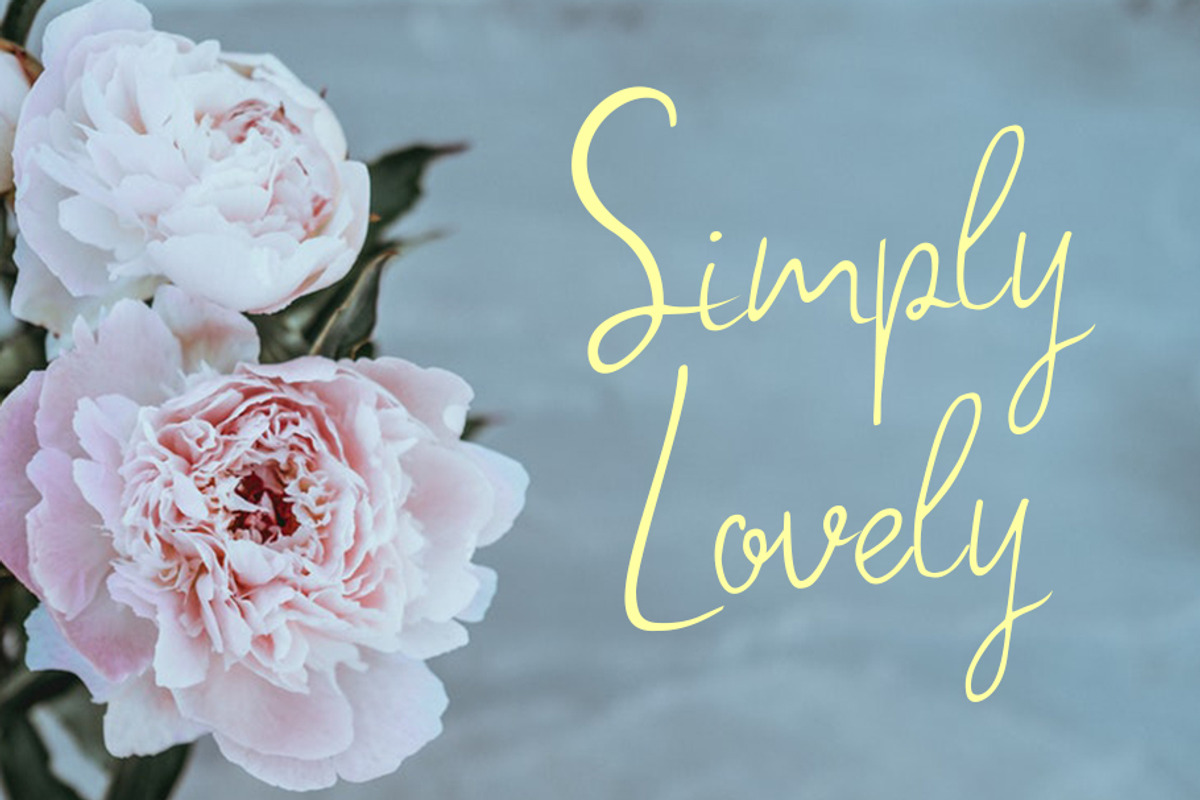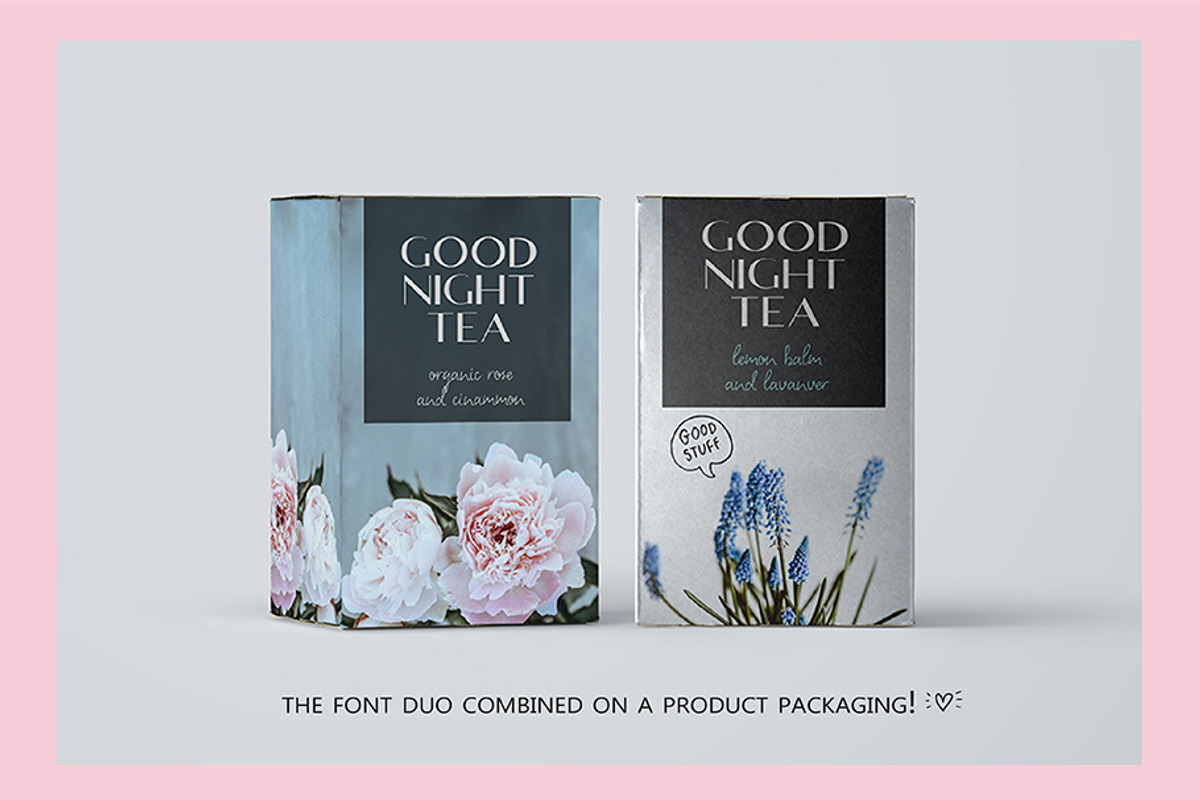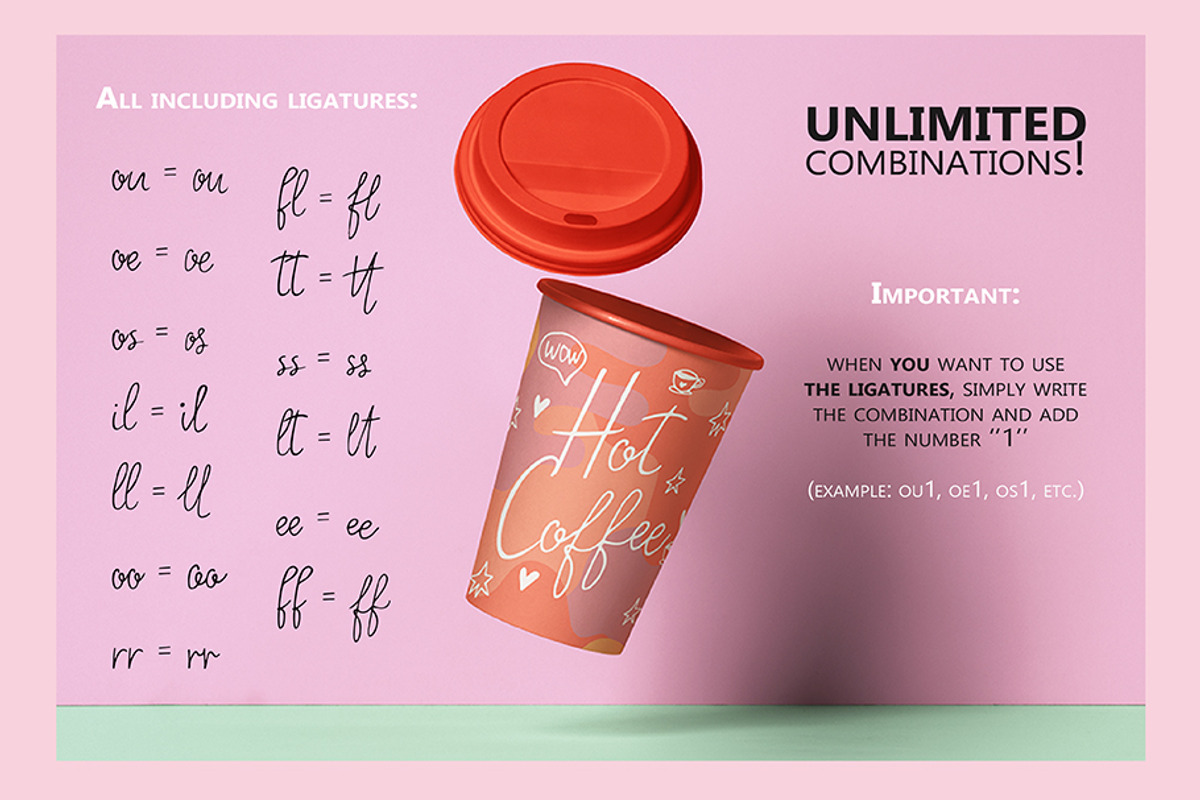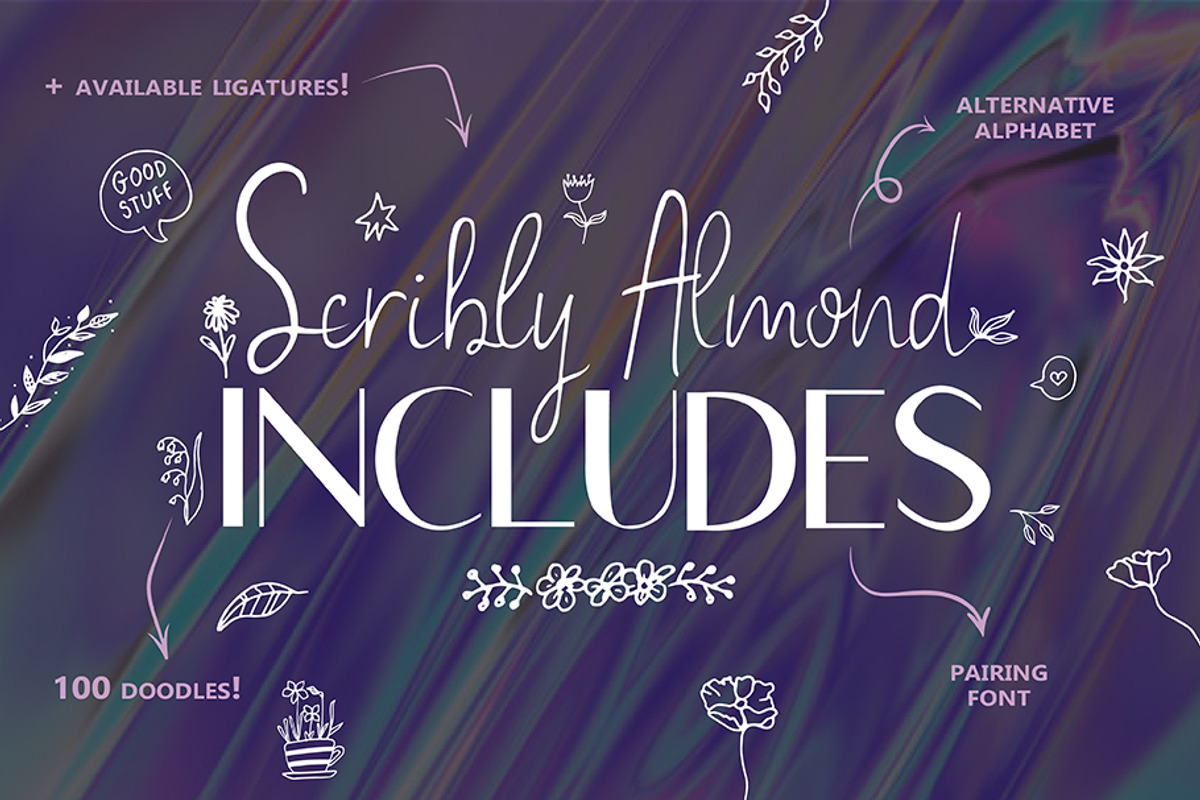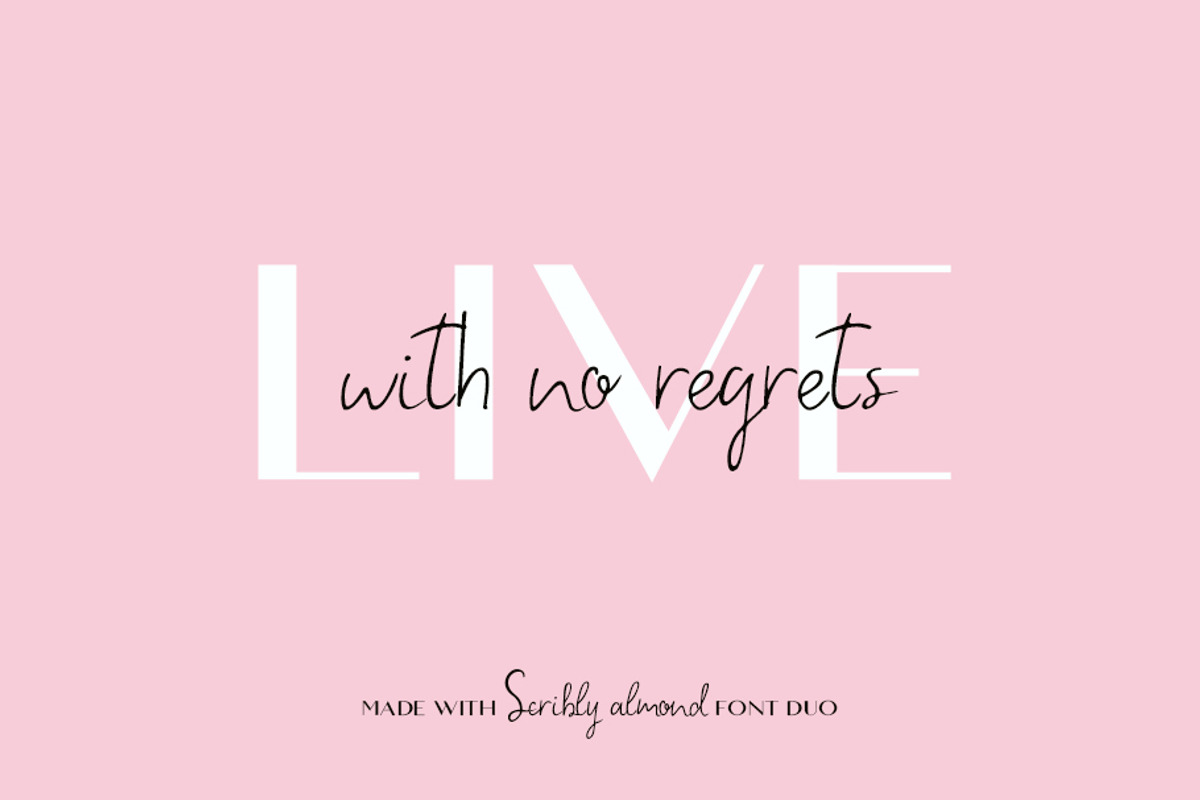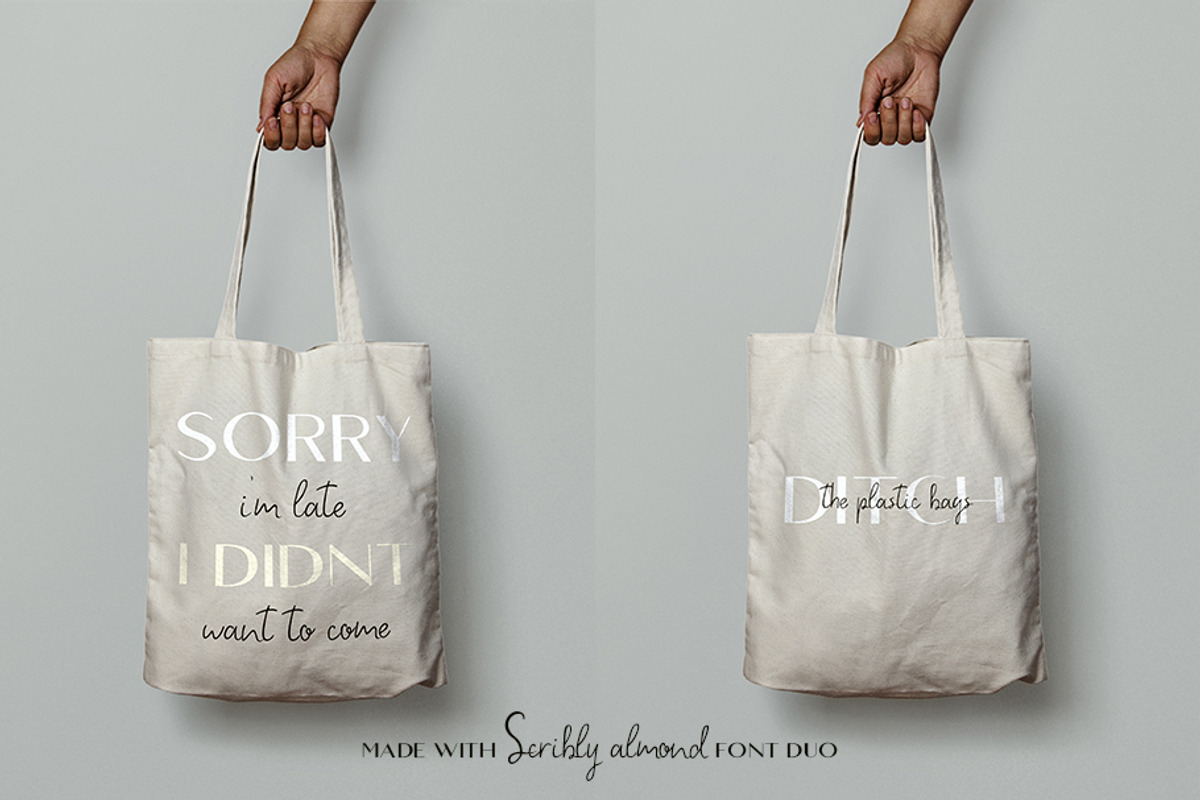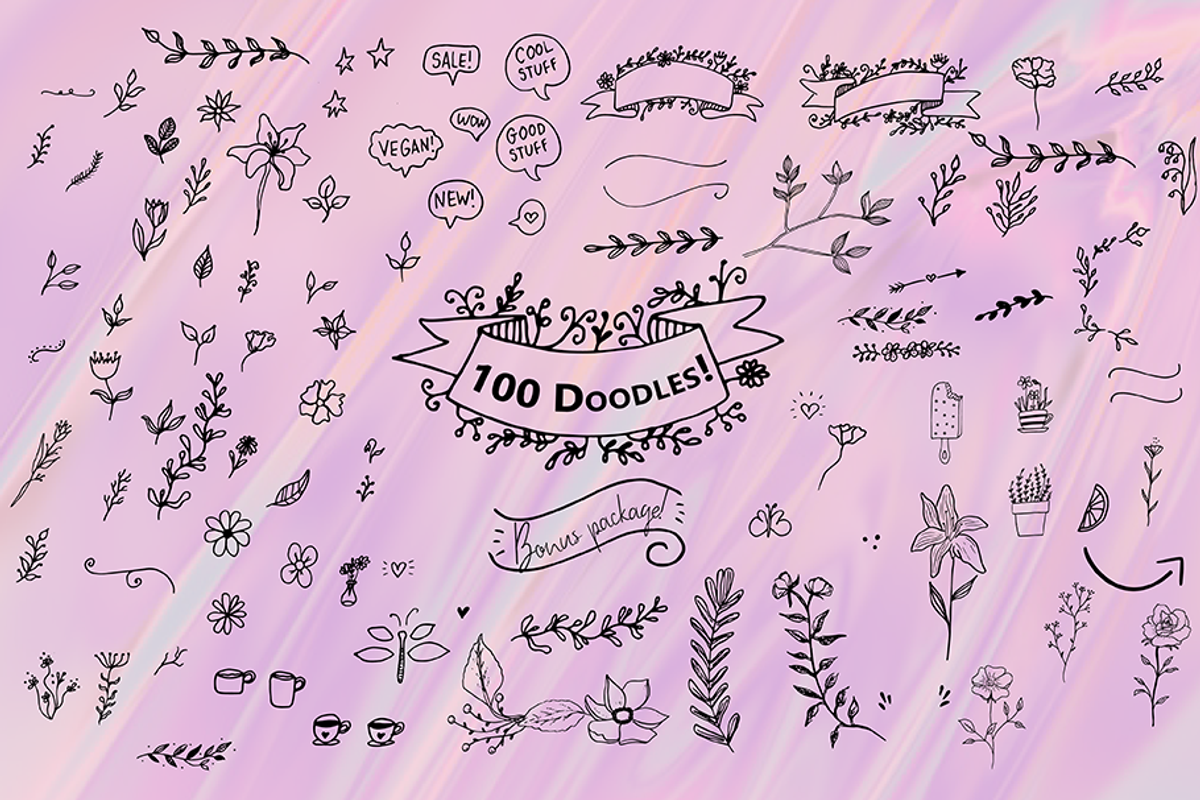
Scribly Almond Font Duo + Extras
Scribly Almond is a handwritten script-style font ideal for product and packaging design, branding, social media advertising, and stationery! It will simply add a unique touch to your projects.
Scribly Almond it's stylish & modern and it comes with an additional set of alternate lowercase and uppercase letters, a pairing font, ligatures, and tons of doodles! This will give you the chance to play around with the letters, making your words look exactly how you want them to! Furthermore, the bonus doodle package will let you create unique product and packaging designs!
Scribly Almond Includes:
1. Scribly Almond Regular
3. Scribly Almond Alternative Alphabet (upper&lower case characters)
4. Humanist Sans Serif Font (uppercase characters)
5. 100 VECTOR doodles